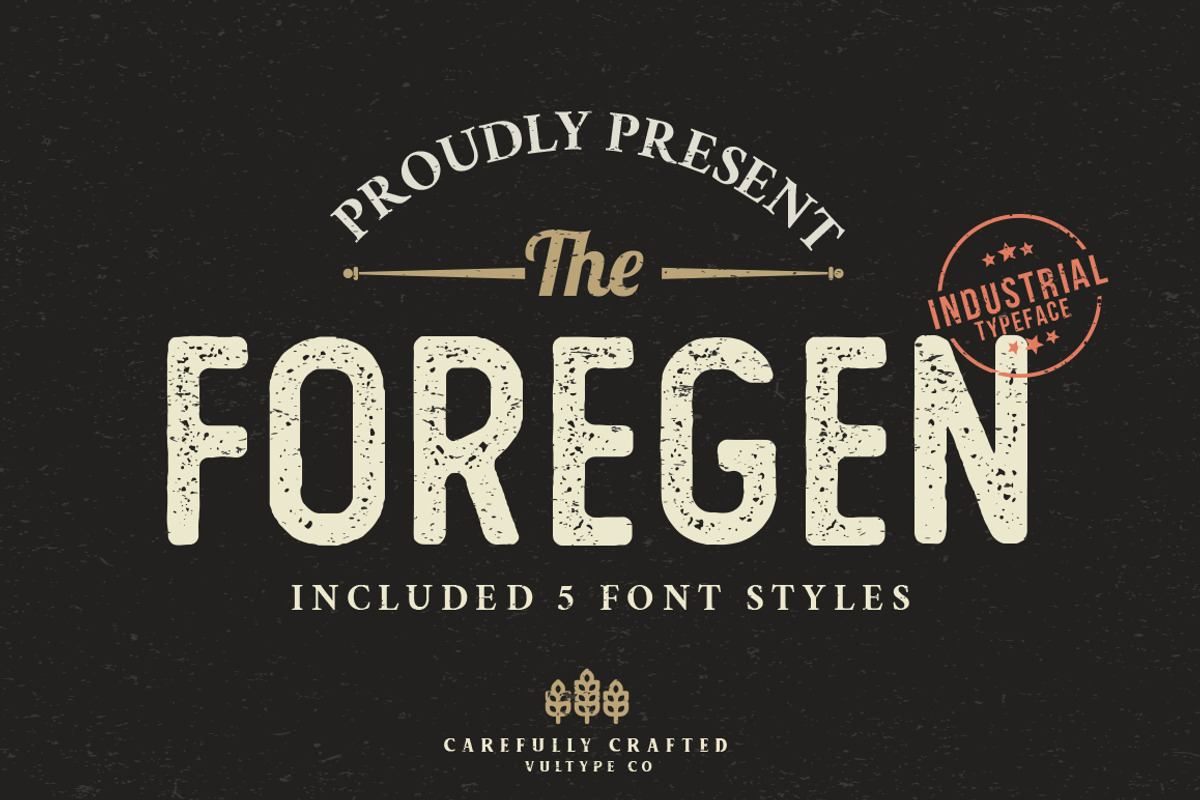
The Foregen - Vintage Stamp Font Free Download
The Foregen - Vintage Stamp Font Free Download is a bold and textured typeface inspired by vintage stamps and distressed lettering. With its rough, weathered edges and strong, industrial feel, The Foregen is perfect for retro branding, vintage-inspired logos, posters, t-shirt designs, and any project that needs a rugged, old-school touch.
The Foregen - Vintage Stamp Font Free Download brings authenticity and character to your typography with its worn-in, stamped look. Whether you're creating a retro logo, designing event materials, or working on custom packaging, this font adds a vintage charm with a modern edge. Download it today and add a stamp of character to your next design project with The Foregen!